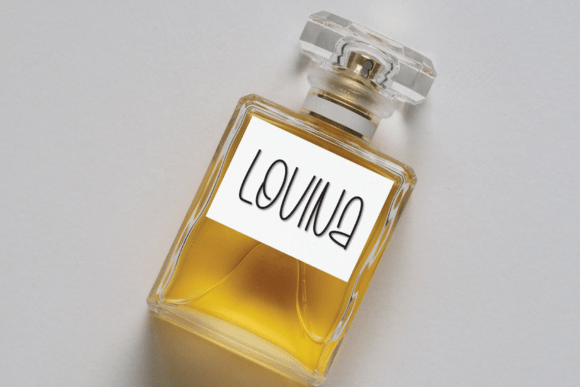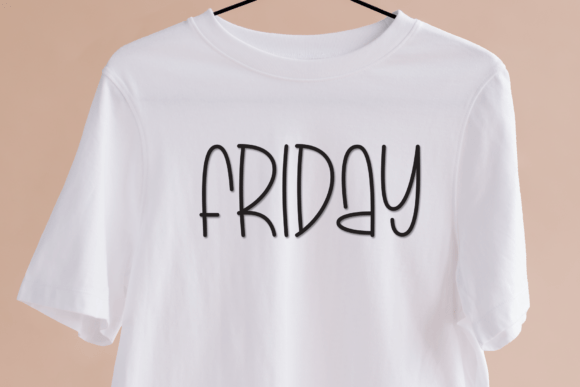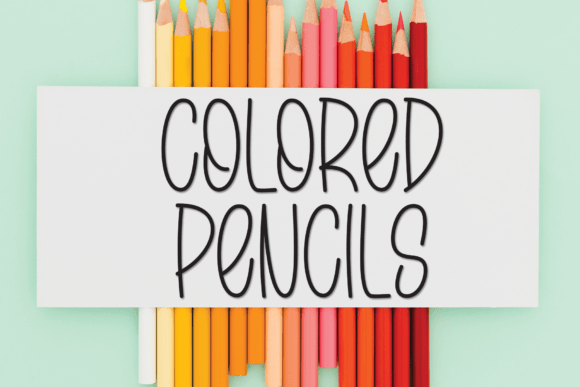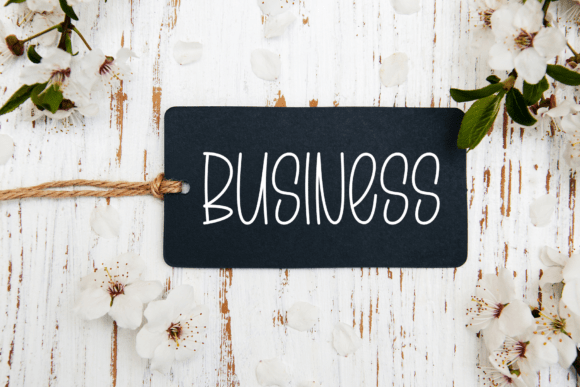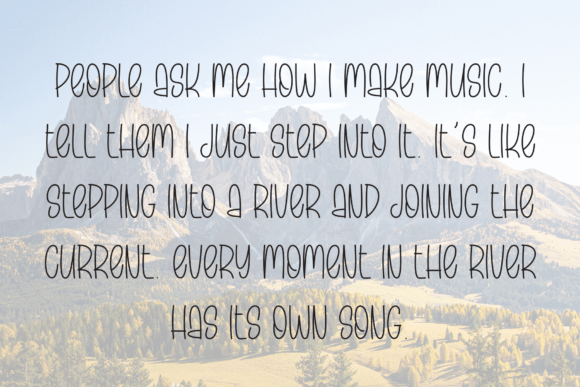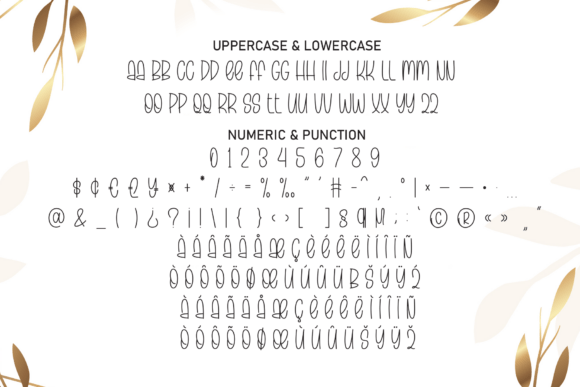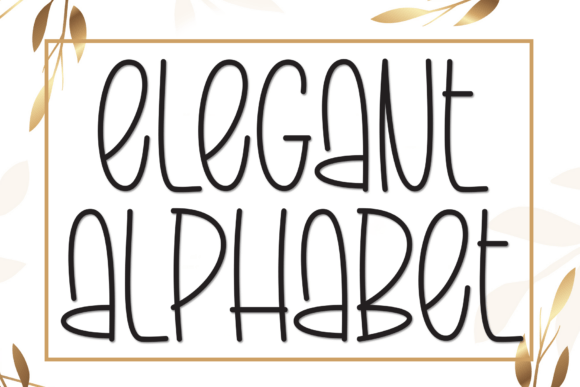
Elegant Alphabet Font: Elevate Your Designs with Breezy Charm
Are you searching for a font that embodies the perfect blend of elegance, playfulness, and versatility? Look no further than Elegant Alphabet, a stunning slender monolinear font that is sure to infuse your creative projects with a touch of sophistication and whimsy. With its tall, condensed letterforms, soft rounded terminals, and organic rhythm, this typeface is designed to bring a sense of polished, human-centric warmth and curated minimalist beauty to your designs.
The Characteristics of Elegant Alphabet
Elegant Alphabet boasts a range of distinctive features that set it apart from other fonts. Its high-waisted geometry and airy apertures provide an intellectual yet accessible aesthetic, making it an ideal choice for a variety of design applications. The font’s slender monolinear construction gives it a sleek, modern look that is perfect for boutique lifestyle branding, creative journaling, nursery decor, and contemporary social media headers.
Tall, Condensed Letterforms
One of the standout features of Elegant Alphabet is its tall, condensed letterforms. These sleek, elongated characters are designed to make a statement, adding a touch of elegance and sophistication to any design. Whether you’re creating a logo, heading, or body text, the font’s condensed letterforms are sure to impress.
Soft, Rounded Terminals
Another key feature of Elegant Alphabet is its soft, rounded terminals. These gentle, curved strokes add a playful, organic touch to the font, giving it a sense of warmth and approachability. The rounded terminals also help to create a sense of movement and fluidity, making the font perfect for designs that require a sense of energy and dynamism.
Playful, Organic Rhythm
Elegant Alphabet’s playful, organic rhythm is one of its most distinctive features. The font’s letterforms seem to dance across the page, creating a sense of movement and flow that is both captivating and engaging. This organic rhythm is achieved through the font’s careful attention to detail, with each letterform carefully crafted to create a sense of harmony and balance.
Design Applications for Elegant Alphabet
Elegant Alphabet is a versatile font that can be used in a wide range of design applications. Its elegant, refined aesthetic makes it perfect for:
- Boutique lifestyle branding: Add a touch of sophistication and elegance to your brand with Elegant Alphabet. The font’s slender monolinear construction and soft rounded terminals make it perfect for creating logos, headings, and body text that exude refinement and style.
- Creative journaling: Bring a sense of whimsy and creativity to your journaling with Elegant Alphabet. The font’s playful, organic rhythm and condensed letterforms make it perfect for adding headings, titles, and inspirational quotes to your journal pages.
- Nursery decor: Create a beautiful and elegant nursery with Elegant Alphabet. The font’s soft, rounded terminals and gentle letterforms make it perfect for creating wall art, nursery rhymes, and baby shower decorations.
- Contemporary social media headers: Stand out on social media with Elegant Alphabet. The font’s sleek, modern aesthetic and condensed letterforms make it perfect for creating eye-catching headers and graphics that are sure to grab attention.
Why Choose Elegant Alphabet?
So why choose Elegant Alphabet for your design projects? Here are just a few reasons:
- Versatility: Elegant Alphabet is a versatile font that can be used in a wide range of design applications, from boutique lifestyle branding to creative journaling.
- Elegance: The font’s slender monolinear construction and soft rounded terminals give it an elegant, refined aesthetic that is sure to impress.
- Playfulness: Elegant Alphabet’s playful, organic rhythm adds a touch of whimsy and creativity to any design.
- Human-centric warmth: The font’s gentle letterforms and soft rounded terminals create a sense of warmth and approachability, making it perfect for designs that require a human touch.
In conclusion, Elegant Alphabet is a stunning font that is sure to elevate your designs with its breezy charm and sophisticated aesthetic. With its versatile design, elegant letterforms, and playful rhythm, this font is perfect for designers and crafters looking to add a touch of refinement and whimsy to their projects. So why wait? Try Elegant Alphabet today and see the difference it can make in your designs!